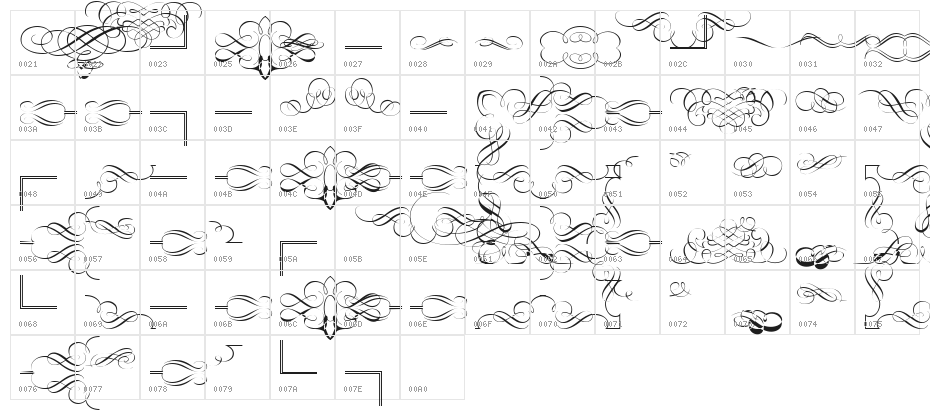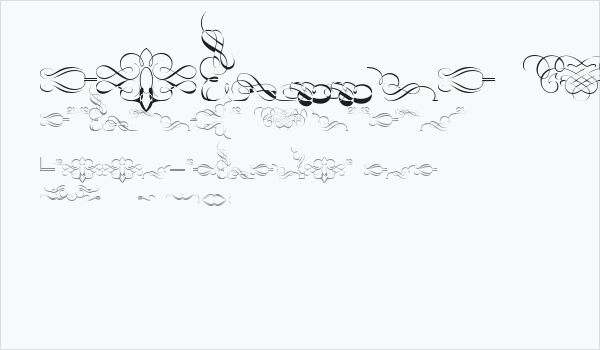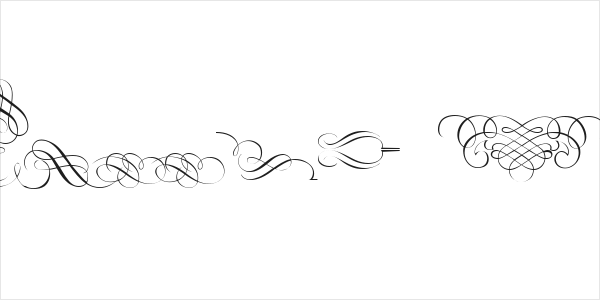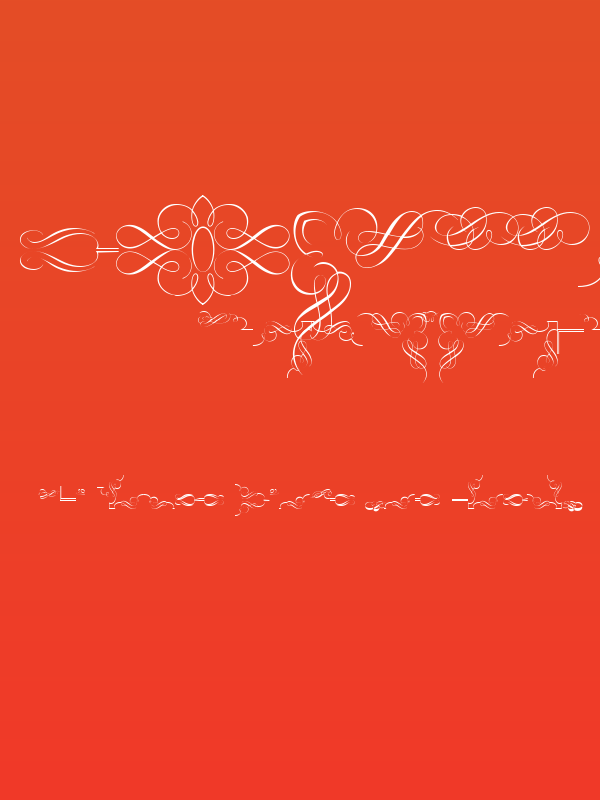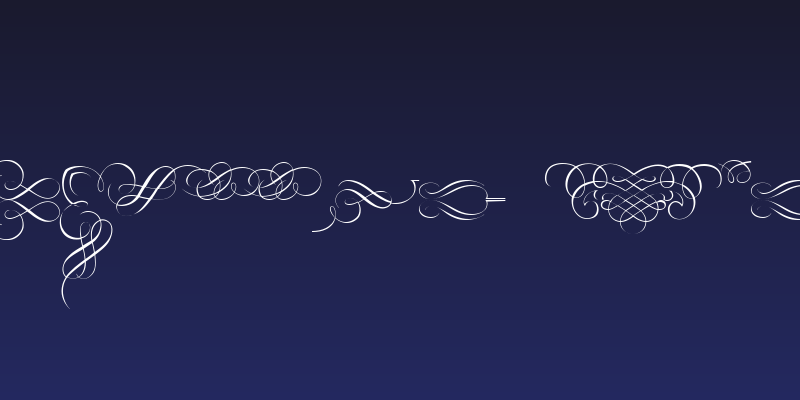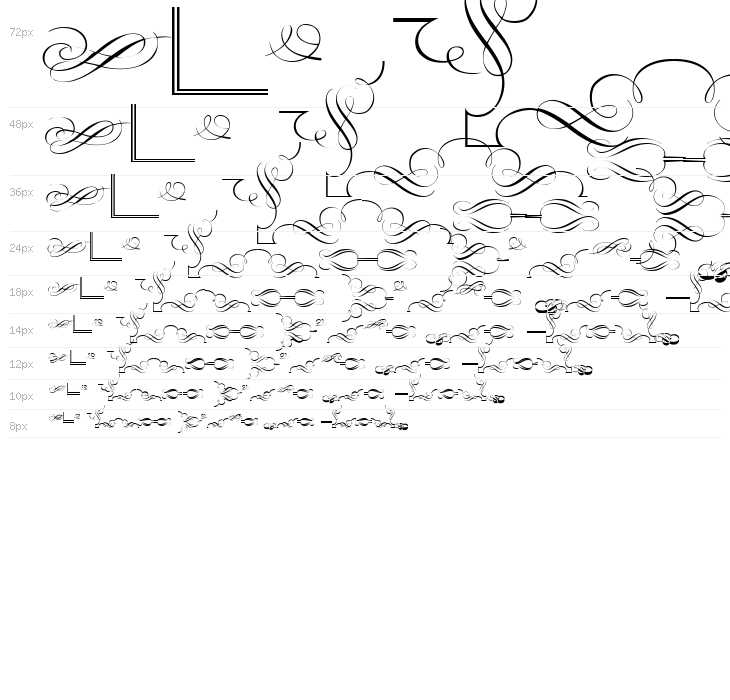
Classic Decor Font
Highly ornate and decorative set of flourishes and borders featuring intricate swirls, loops, and symmetrical patterns, reminiscent of vintage or classical engraving styles.
| Overall Style | Vintage, Decorative, Classic |
| Use Case | Borders, Dividers, Decorative accents |
| Proposed Projects | Wedding invitations, certificates, vintage-themed posters, book covers, decorative dividers, luxury branding. |